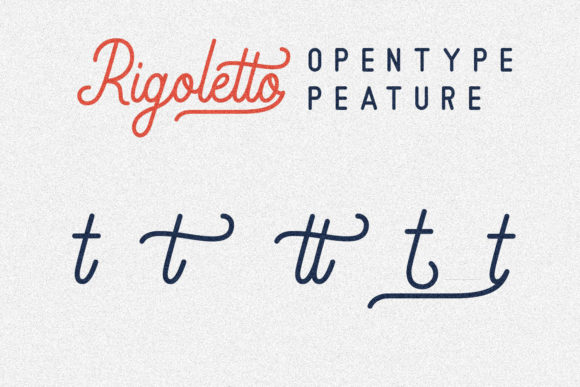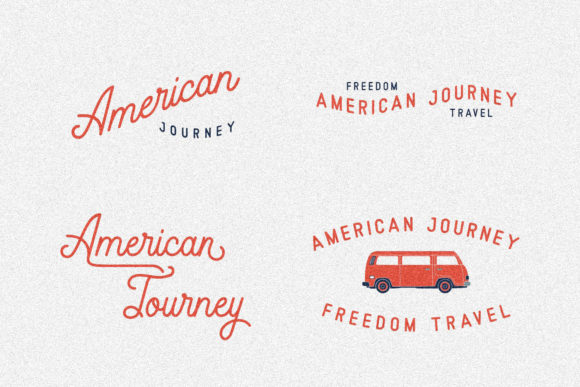
Introduction to Rigoletto Script Font
The Rigoletto is a monoline script font.
πŸ‘€ Author sabrcreative
It has an elegant feel but will also add some playfulness to your designs It’s suited for logotypes, wedding invitations, Vintage labels, romantic cards and others.
Key Features of Rigoletto Script Font
Why Choose Rigoletto Script Font?